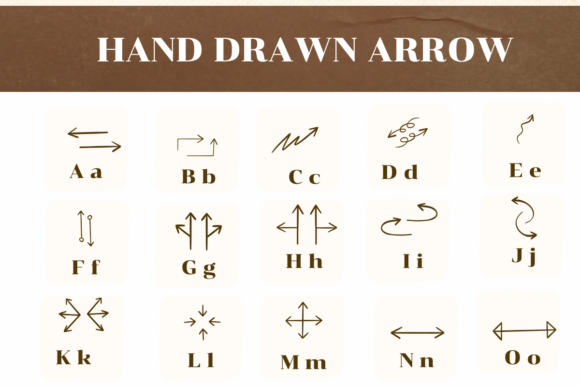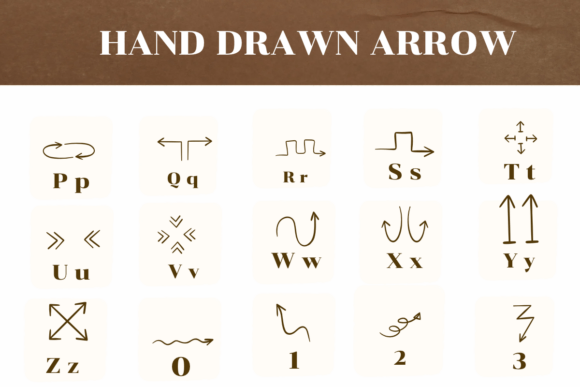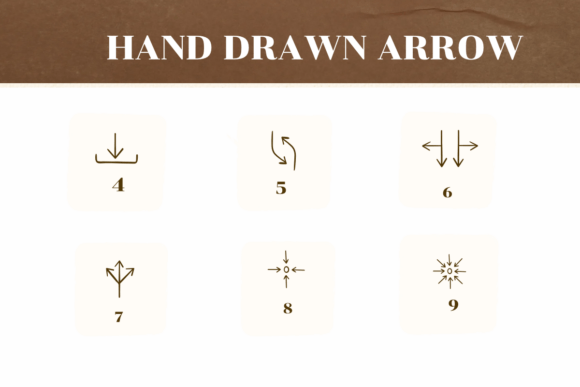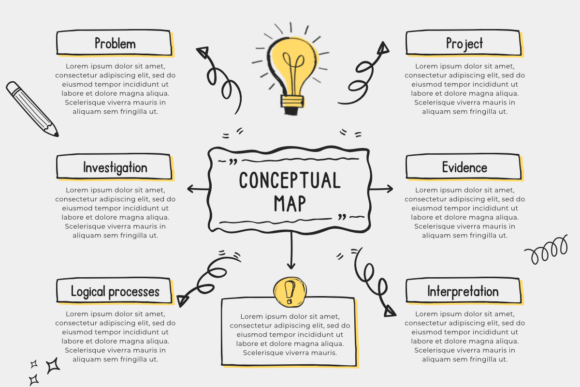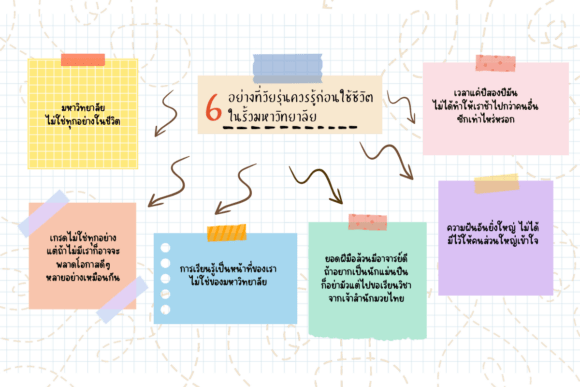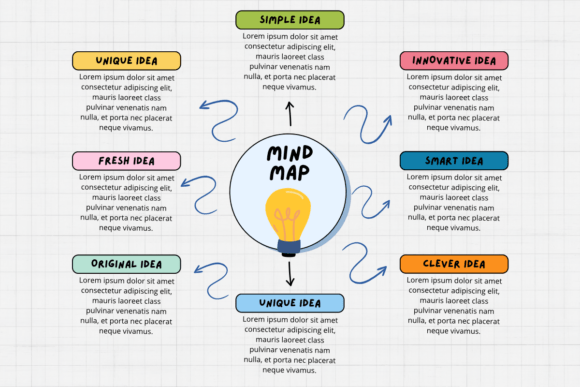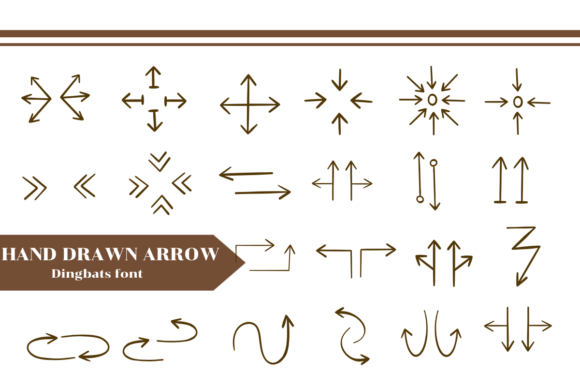
Elevate Your Creative Projects with Hand Drawn Arrow Font
Are you a designer, crafter, or DIY enthusiast looking for a unique and creative way to add a personal touch to your projects? Look no further than the Hand Drawn Arrow Font, a charming dingbats font that brings a sketched style to your designs. In this article, we’ll explore the features and benefits of this versatile font and how it can enhance your creative projects, from wedding invitations to logos and beyond.
What is Hand Drawn Arrow Font?
Hand Drawn Arrow is a dingbats font that features hand-drawn, sketched arrows and decorative elements. This font is perfect for adding a personal, handmade touch to your designs. With its unique and playful style, Hand Drawn Arrow Font is ideal for a wide range of creative projects, including wedding invitations, DIY crafts, decorations, logos, and more.
Key Features of Hand Drawn Arrow Font
- Hand-drawn, sketched style: Each arrow and decorative element is carefully hand-drawn, giving the font a unique, one-of-a-kind feel.
- Dingbats font: Hand Drawn Arrow Font is a dingbats font, which means it’s comprised of decorative symbols, arrows, and elements rather than traditional letters and numbers.
- Versatile: This font can be used for a wide range of creative projects, from digital designs to print materials.
Creative Ways to Use Hand Drawn Arrow Font
With its unique, hand-drawn style, Hand Drawn Arrow Font can add a touch of personality to a wide range of creative projects. Here are some ideas to get you started:
- Wedding Invitations: Add a romantic, whimsical touch to your wedding invitations with hand-drawn arrows and decorative elements.
- DIY Crafts: Use Hand Drawn Arrow Font to create custom labels, tags, and embellishments for your DIY crafts.
- Decorations: Add a personal touch to your party decorations, garlands, and banners with this charming font.
- Logos and Branding: Use Hand Drawn Arrow Font to create unique, hand-drawn logos and branding elements for your business or personal projects.
- Stationery and Cards: Add a touch of personality to your stationery, greeting cards, and postcards with hand-drawn arrows and decorative elements.
Hand Drawn Arrow Font is a versatile, charming dingbats font that can elevate your creative projects and add a personal touch. With its unique, hand-drawn style and wide range of uses, this font is perfect for designers, crafters, and DIY enthusiasts. Whether you’re creating wedding invitations, DIY crafts, or logos, Hand Drawn Arrow Font is sure to inspire your creativity and take your designs to the next level.